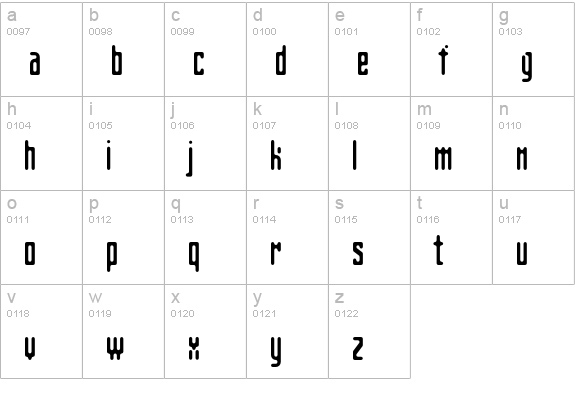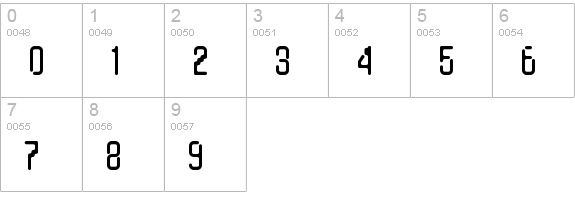
Matica-Normal is the standard, neutral variant in the Matica typeface family \xE2\x80\x94 well suited to general body text, paragraphs, and standard typographic work.
Introducing Matica-Normal, a remarkable font that effortlessly combines elegance with modern simplicity. This captivating typeface is designed to make a lasting impression, whether it is used in headlines, logos, or any creative project that requires a touch of sophistication. Matica-Normal stands out with its sleek and clean lines, perfectly balancing classic and contemporary aesthetics. Its well-crafted letterforms exude a sense of professionalism and refinement, making it an excellent choice for both print and digital media. But what truly sets Matica-Normal apart is its availability as a free download. Yes, you read that right! This exceptional font can be freely obtained at FontsMarket.com, allowing designers, creators, and enthusiasts to access its timeless beauty without any cost. With this generosity, FontsMarket.com empowers individuals to bring their visions to life with Matica-Normal, igniting boundless creativity and unleashing the potential for stunning designs. Whether you are a seasoned professional or an aspiring artist, Matica-Normal will prove to be an invaluable addition to your font library. Its versatility and legibility make it suitable for a wide range of projects, from branding and advertising to editorial design and beyond. With its extensive character set and various weights, Matica-Normal offers the flexibility needed to create captivating typography that truly stands out. So why wait? Embrace the beauty and versatility of Matica-Normal today, as it awaits your creative touch. Discover the endless possibilities it holds and download it freely at FontsMarket.com. Elevate your designs and captivate your audience with this exceptional font that is sure to leave a lasting impression.